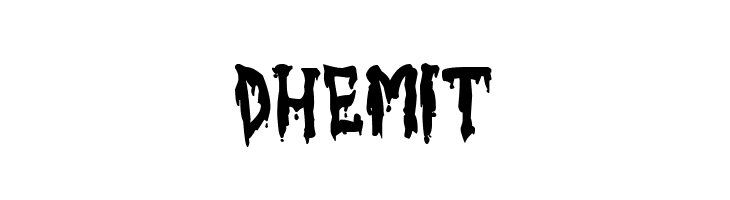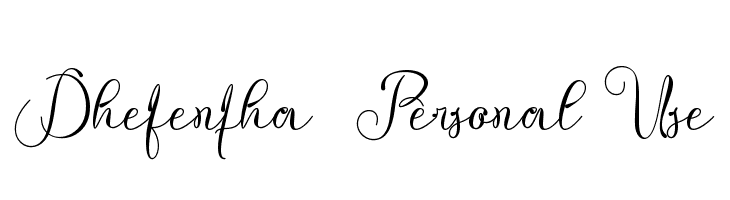
A bold, distressed font with a gritty, vintage punk aesthetic.
A bold, distressed font with a gritty, urban aesthetic.
A bold, geometric font with an industrial and modern aesthetic.
A bold, geometric font with a blocky and modern design.
A decorative serif font with artistic, hand-drawn embellishments.
A bold, hand-drawn font with a playful and rustic style.
A playful, whimsical font with hand-drawn, curly characters.